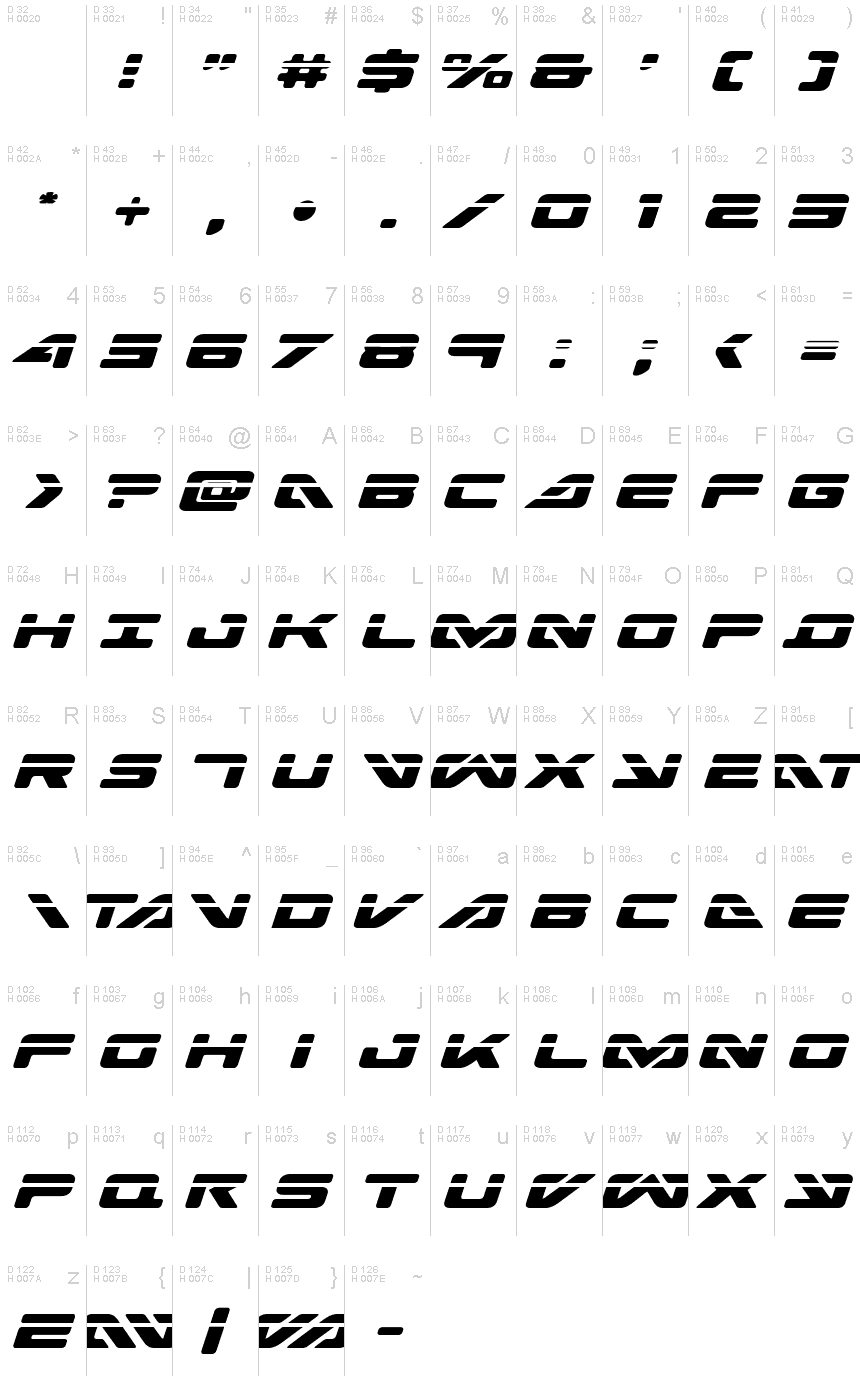
Sea-Dog Laser Italic is a stunning display font that exudes a futuristic vibe. Designed by Iconian Fonts, this bold and extra-expanded typeface is perfect for creating attention-grabbing headers, logos, and posters. Its sleek and edgy design makes it ideal for projects that require a modern touch. From sci-fi movie titles to high-tech product branding, Sea-Dog Laser Italic will make your message stand out from the crowd. With its unique italic style and laser-like appearance, this font is sure to leave a lasting impression on your audience. Get creative with Sea-Dog Laser Italic today!
Sea-Dog Laser Italic